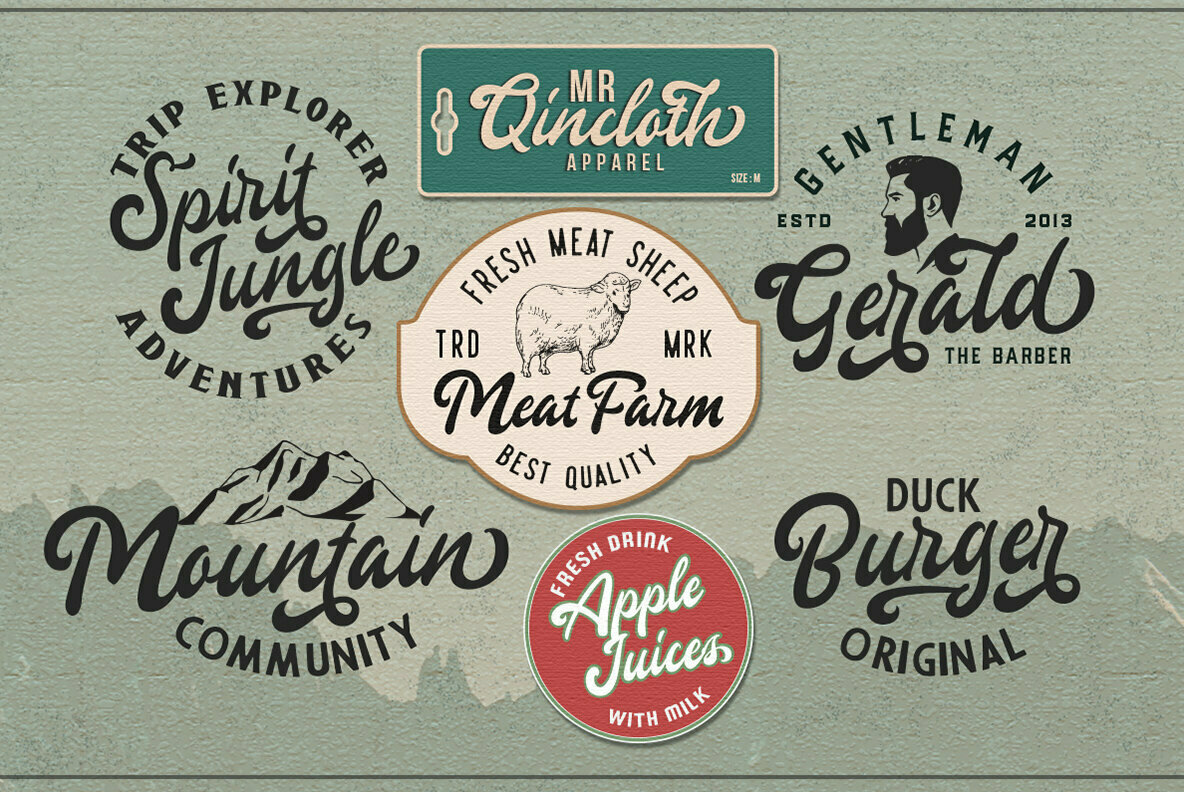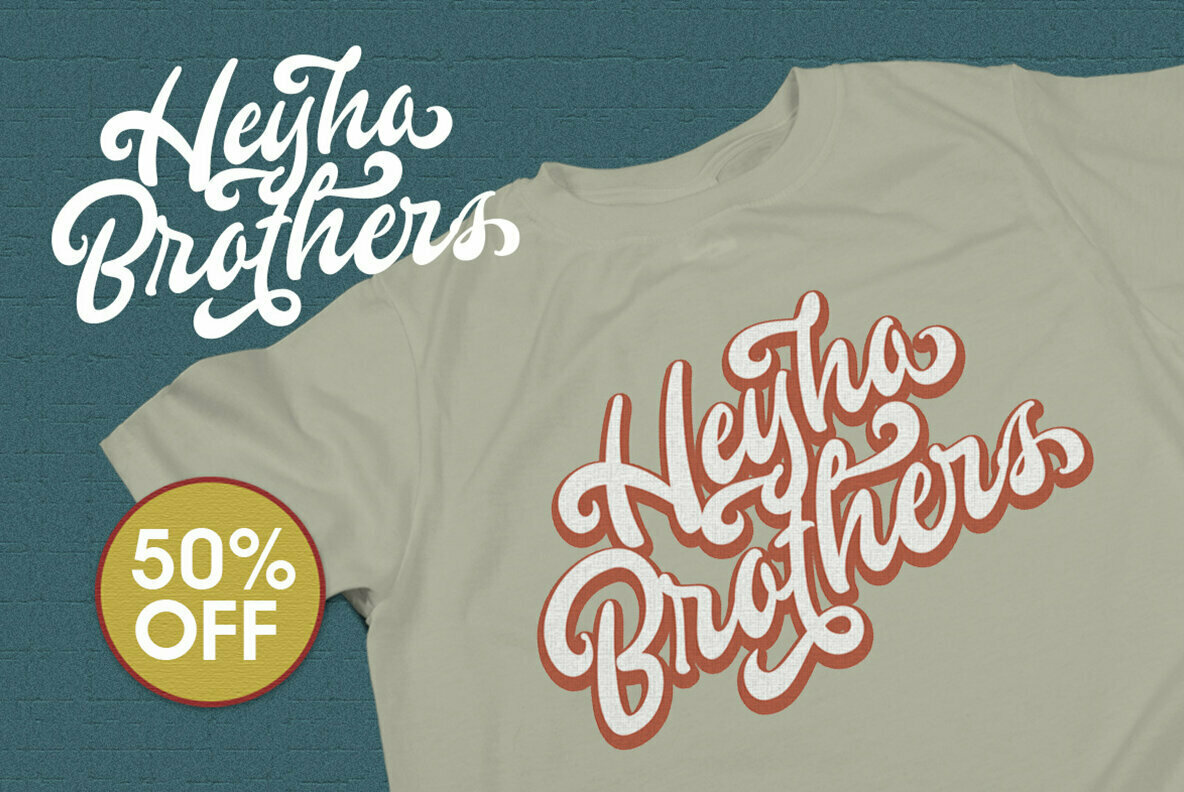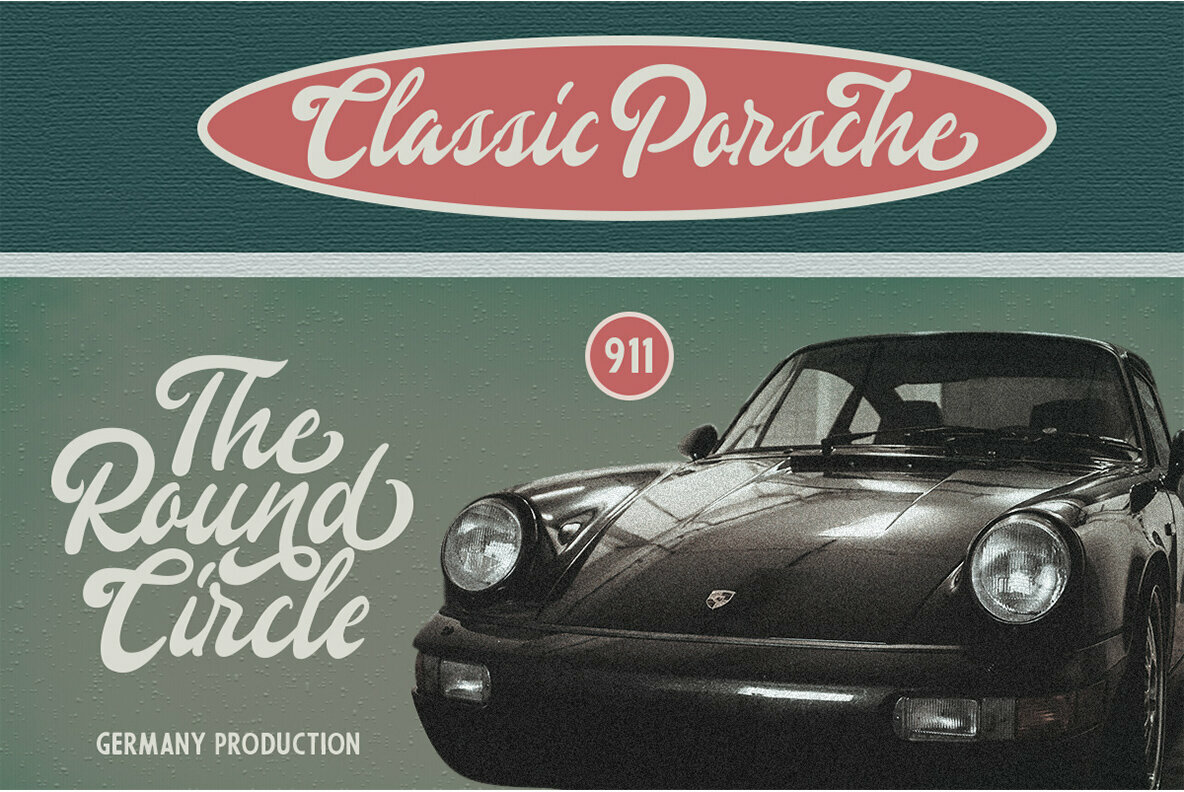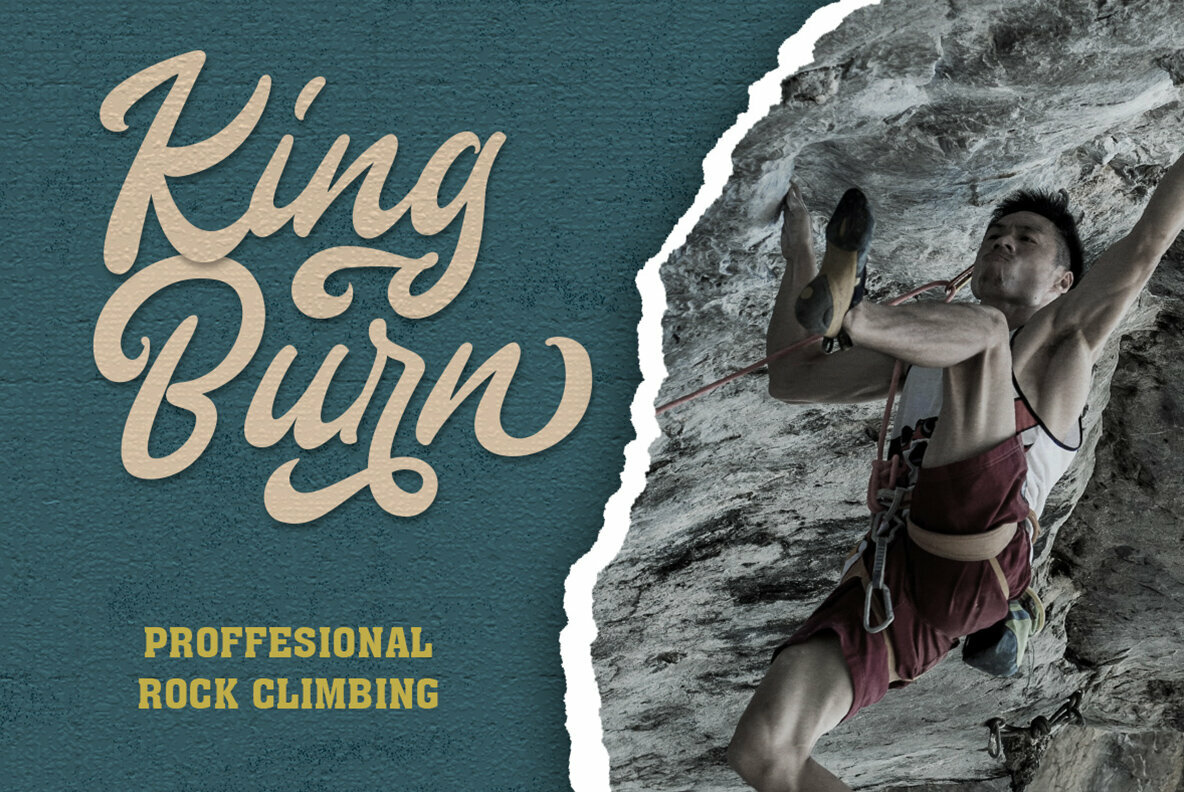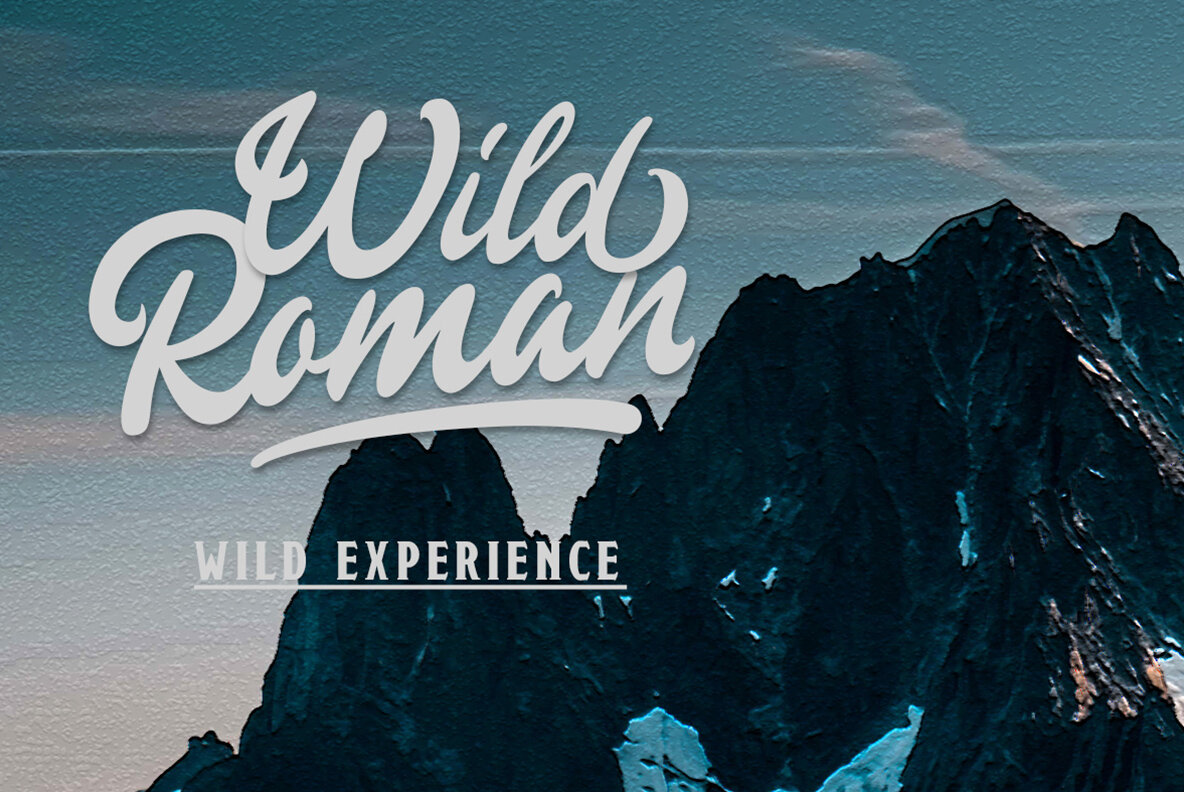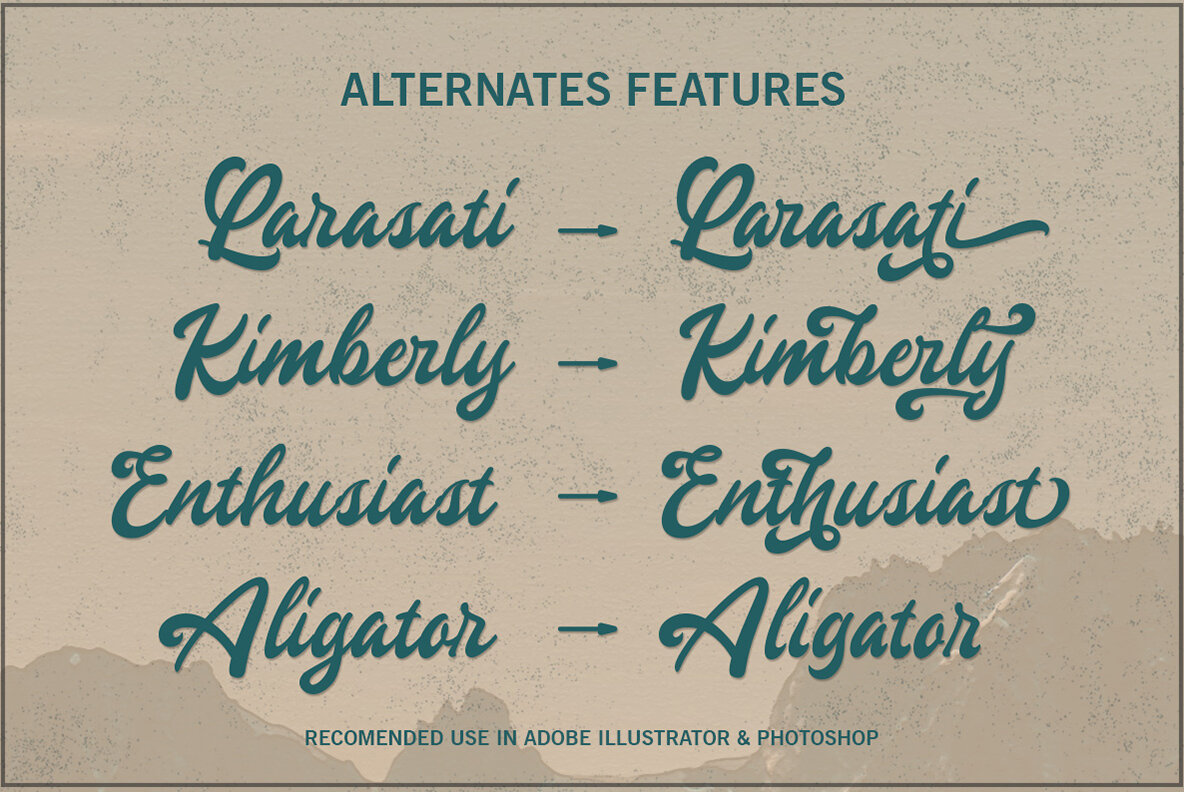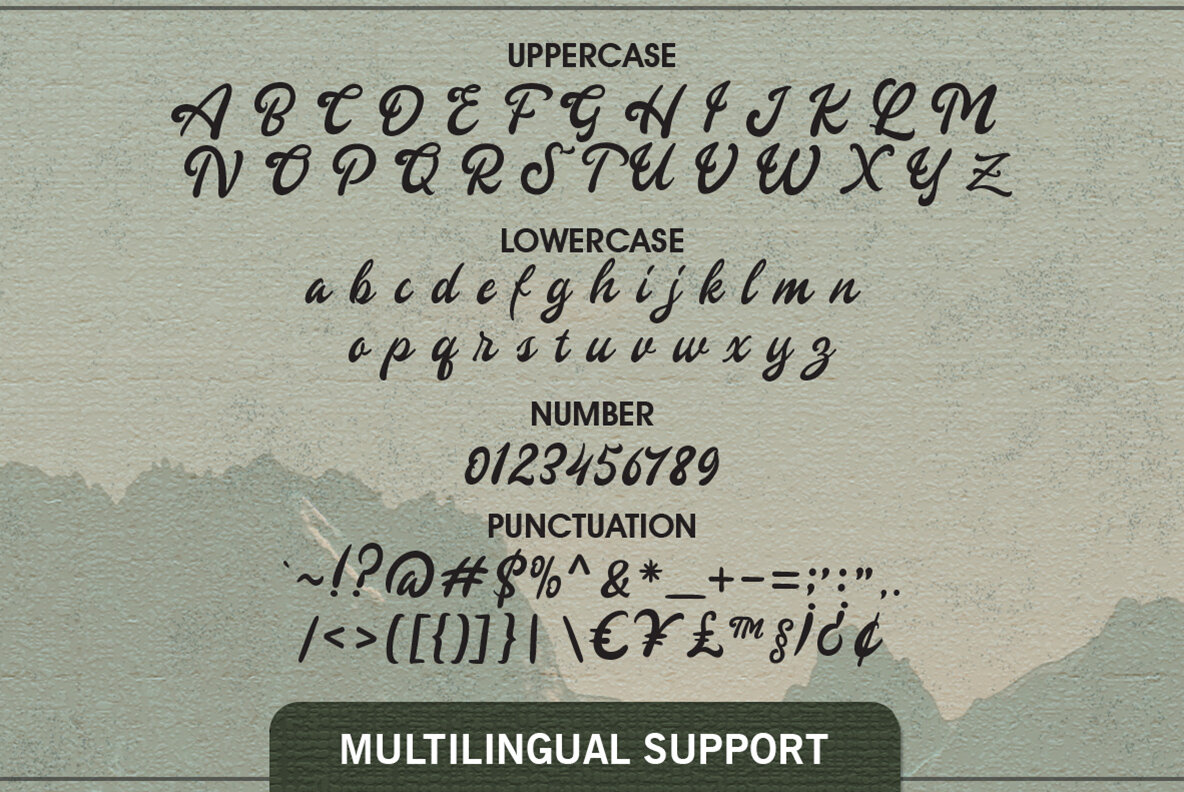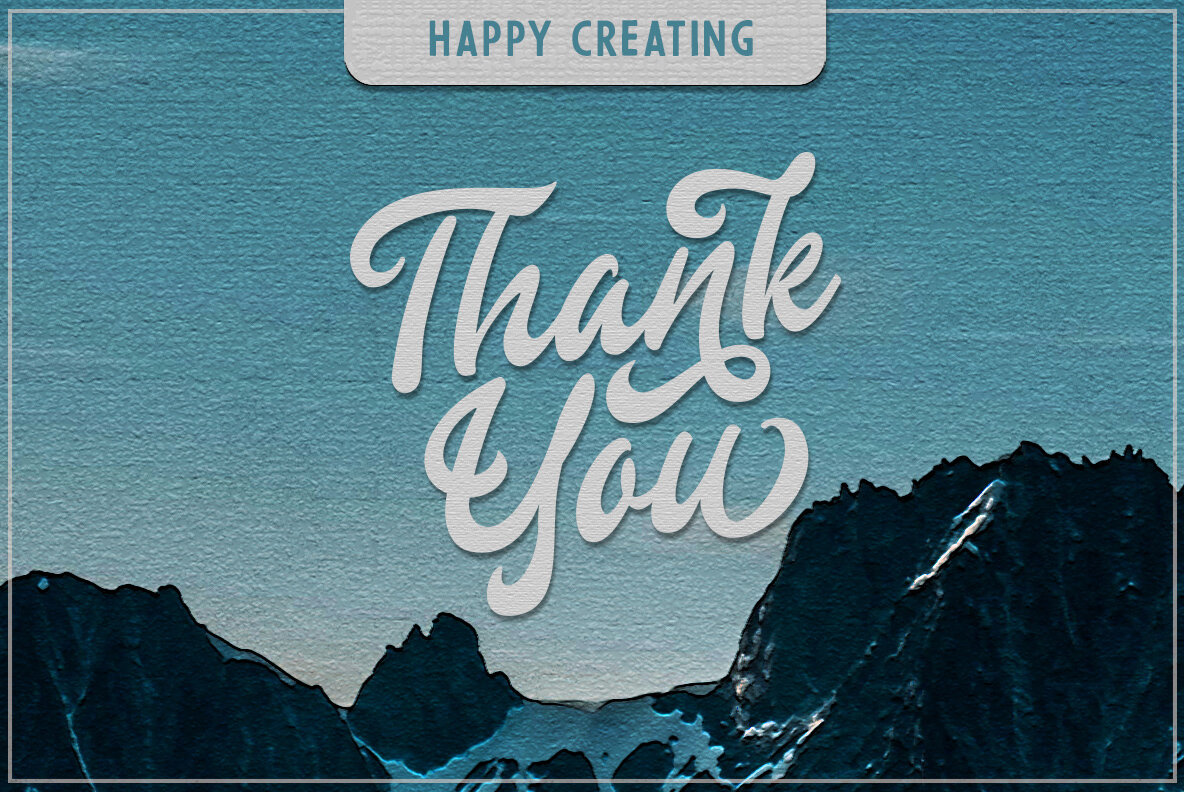
Gingerly Font
Gingerly
Gingerly by Letterhend Studio embodies the power of bold typography, meticulously crafted for impactful logotypes. Its design lends itself beautifully to a variety of formal applications, ensuring your brand's presence is both striking and memorable. Whether utilized in logos, invitations, labels, magazines, or any other formal medium, Gingerly provides a versatile foundation for your creative endeavors.Gingerly: A Bold Script for Dynamic Logos